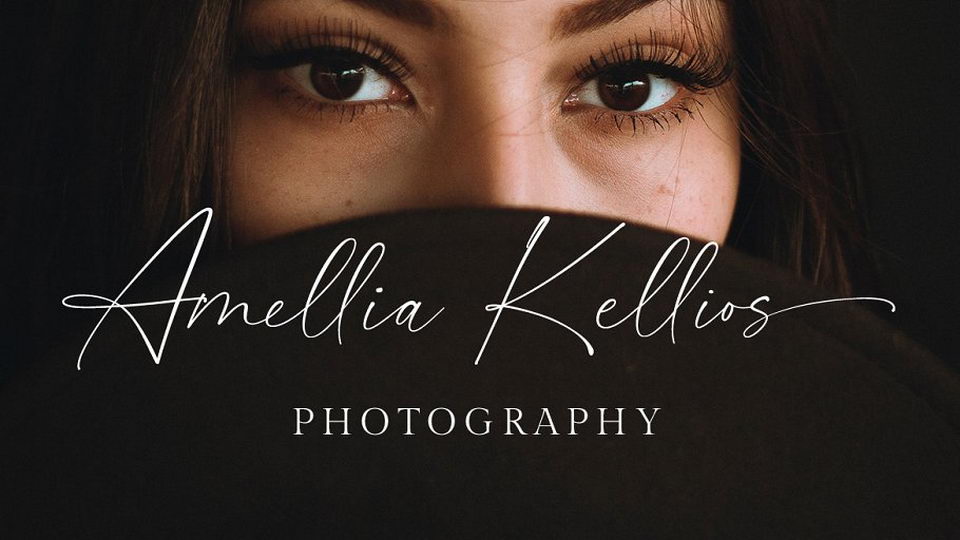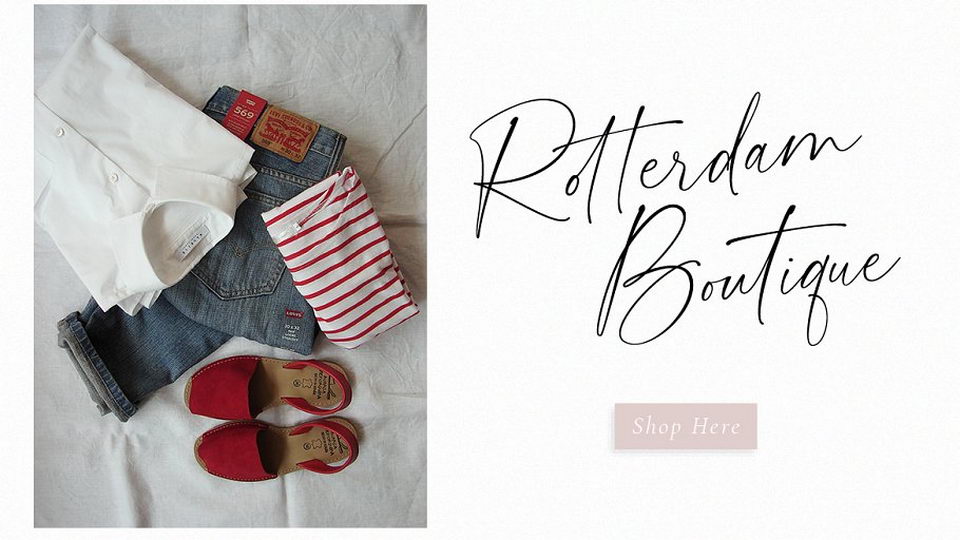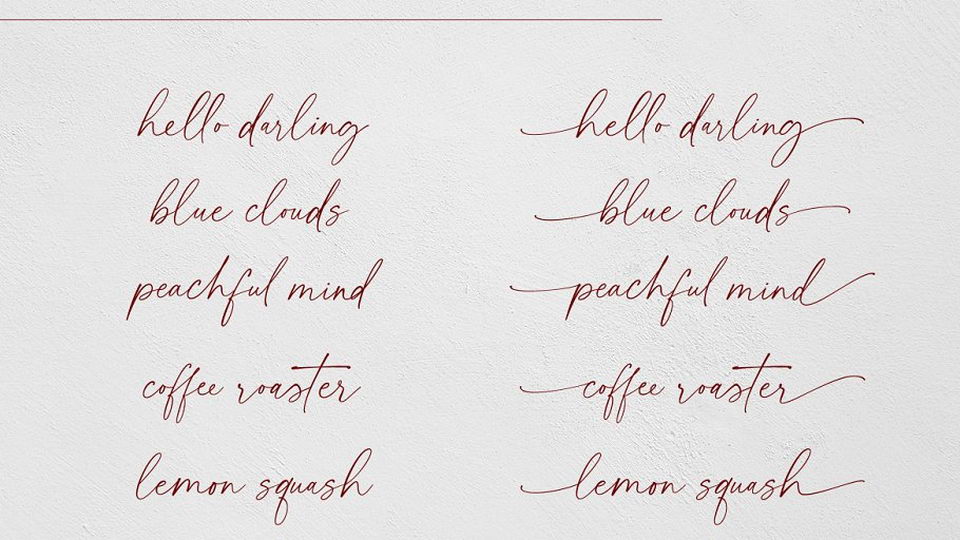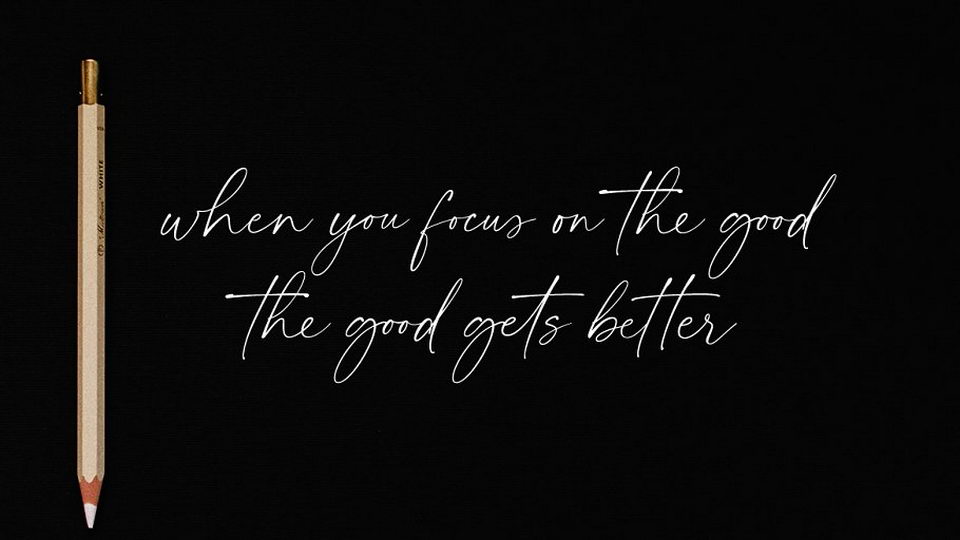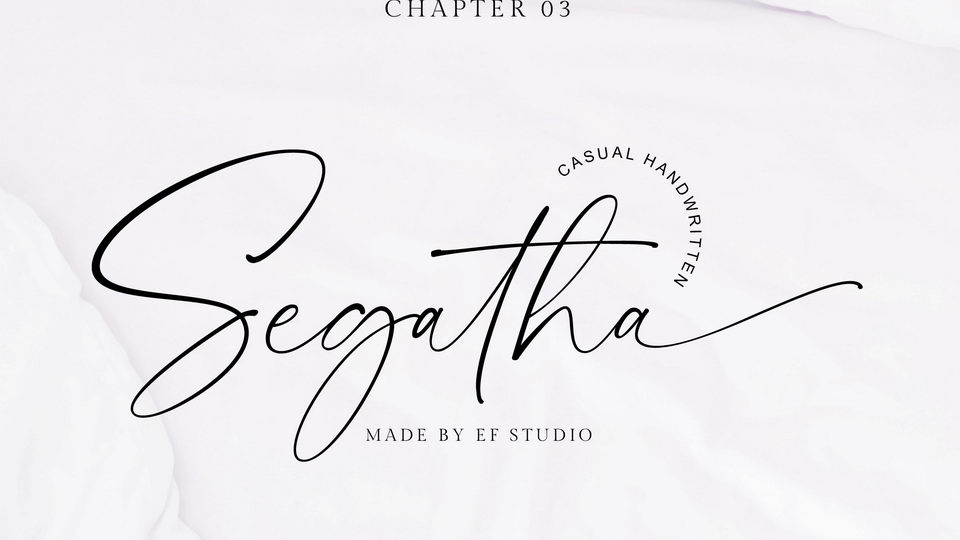
Segatha Script
Segatha is a beautiful casual handwritten font with beginning and ending lowercase swashes, 94 ligatures that add more beautiful and aesthetic look to perfect your extraordinary project.
Segatha font is very suitable for branding, invitations, watermarks, photography, and more